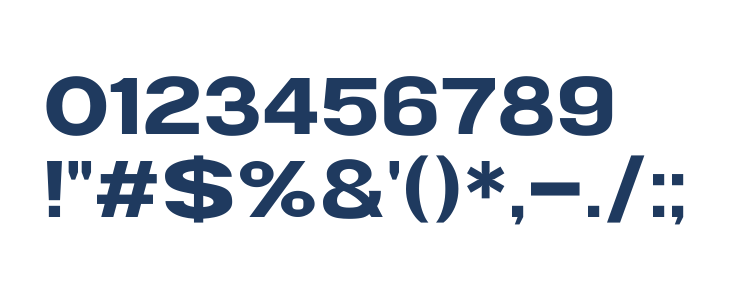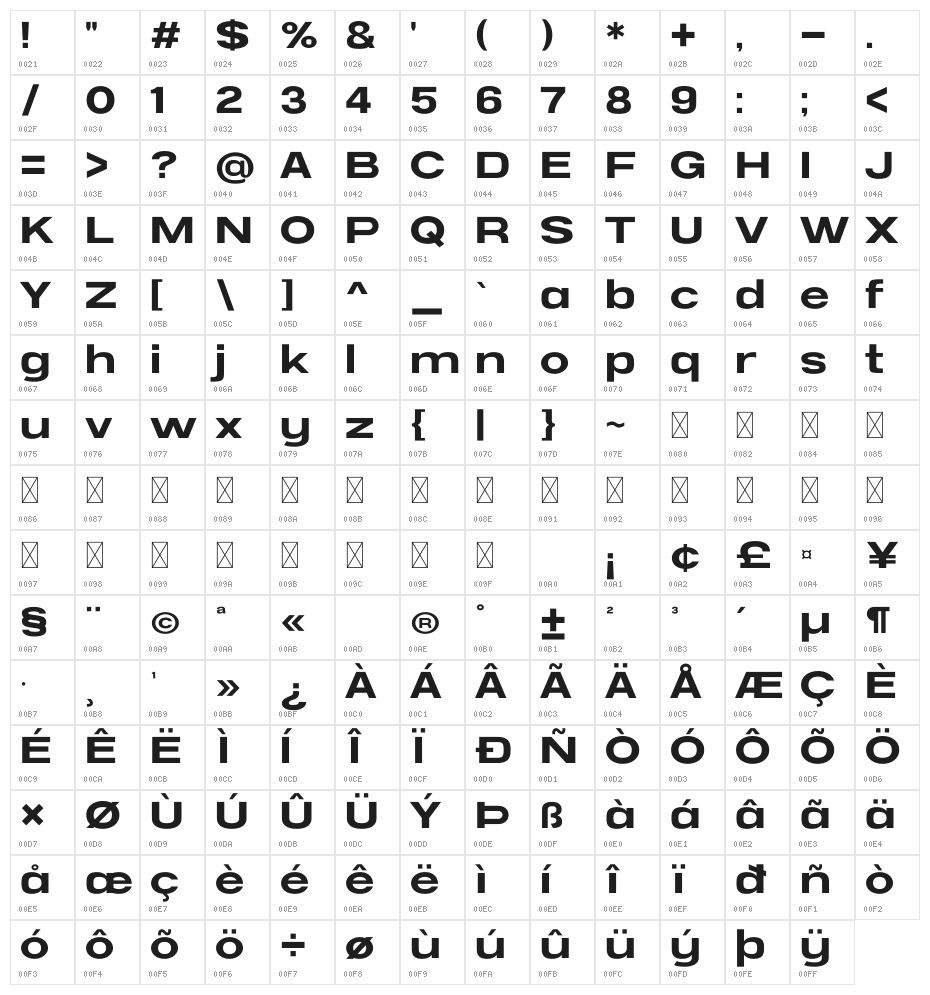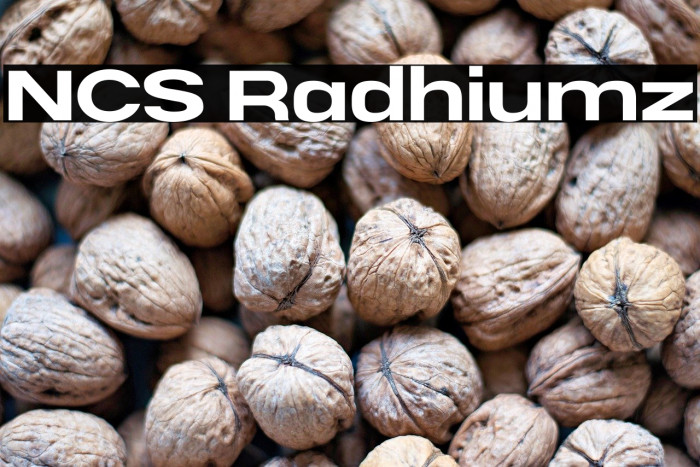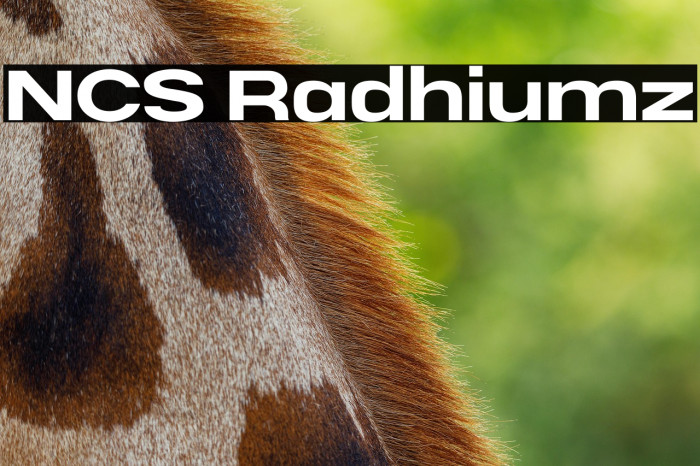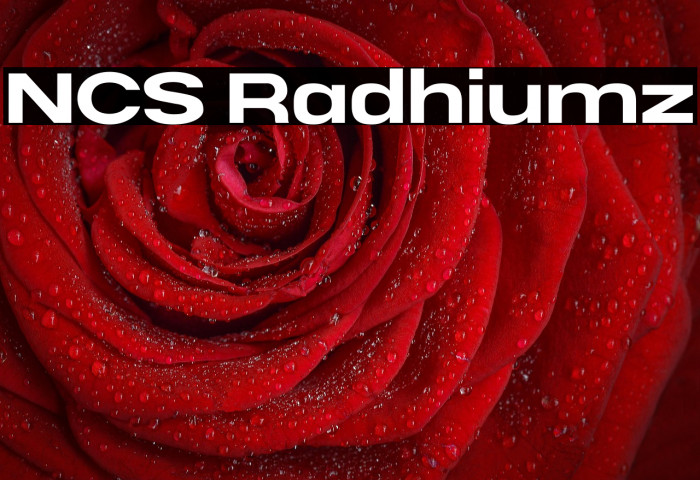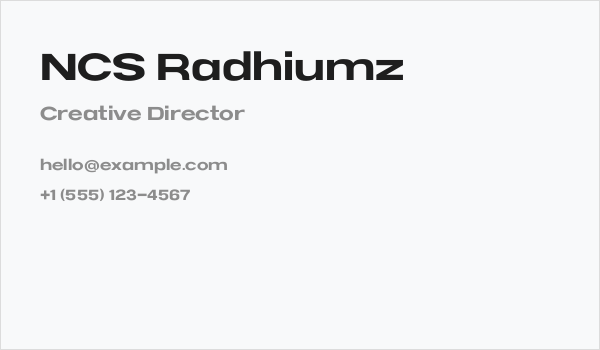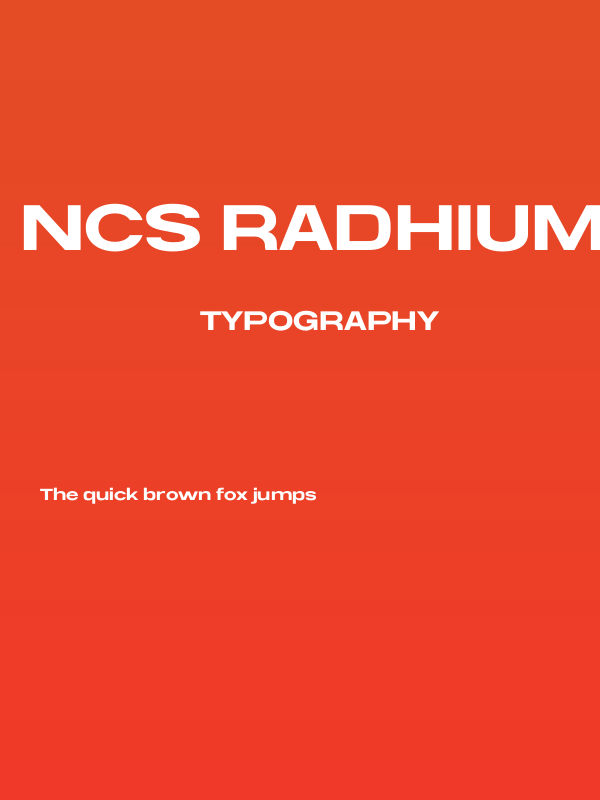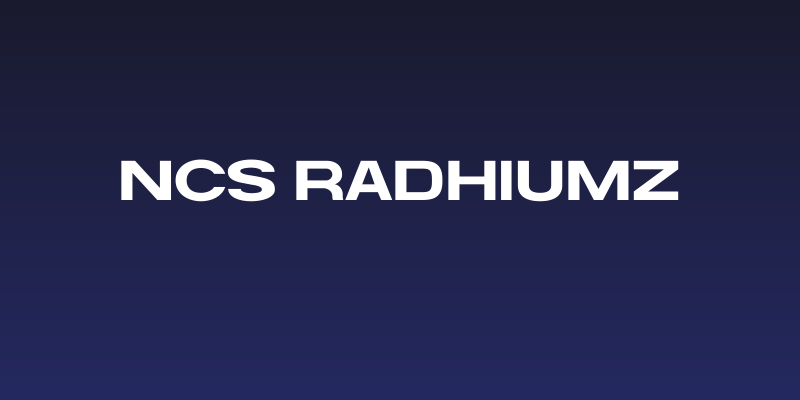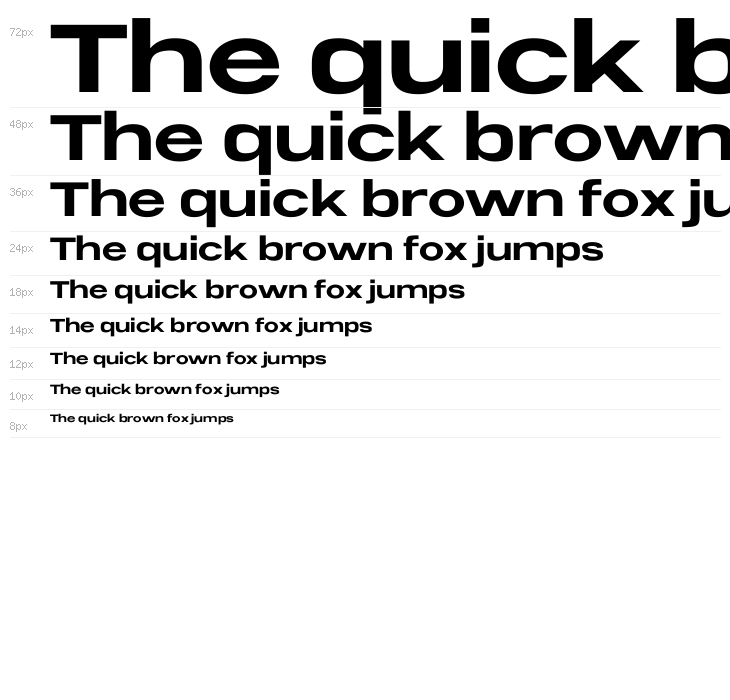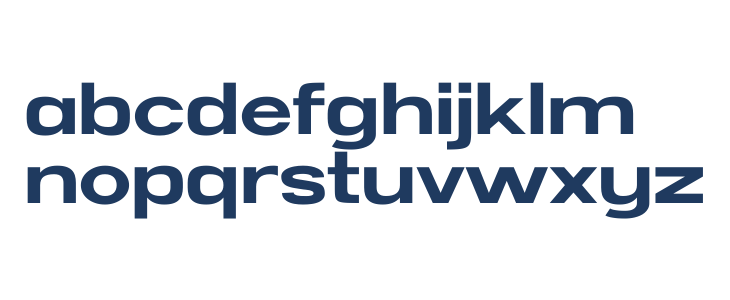
NCS Radhiumz Font
NCS Radhiumz Description
This font exhibits a bold and modern sans-serif style, characterized by clean lines and a strong presence. The uppercase and lowercase letters are well-proportioned, with a consistent stroke width that conveys a sense of stability and professionalism. The numerals are clear and easily distinguishable, making them suitable for both digital and print media. Special characters are designed with the same attention to detail, ensuring a cohesive look across all glyphs. The overall design is versatile, making it suitable for a wide range of applications, from branding to editorial design.
| Use Case | Headlines, Logos, Digital Interfaces |
| Proposed Projects | Ideal for branding, editorial design, advertising, and digital interfaces. |